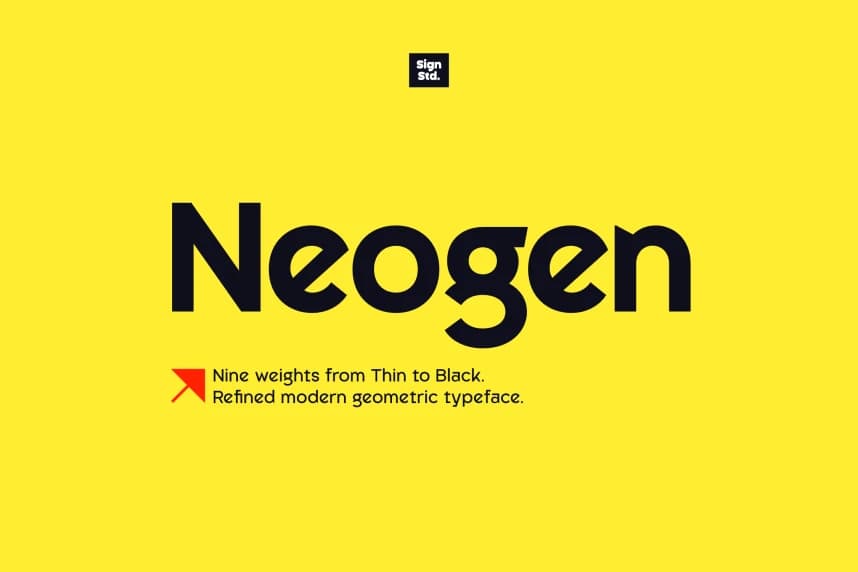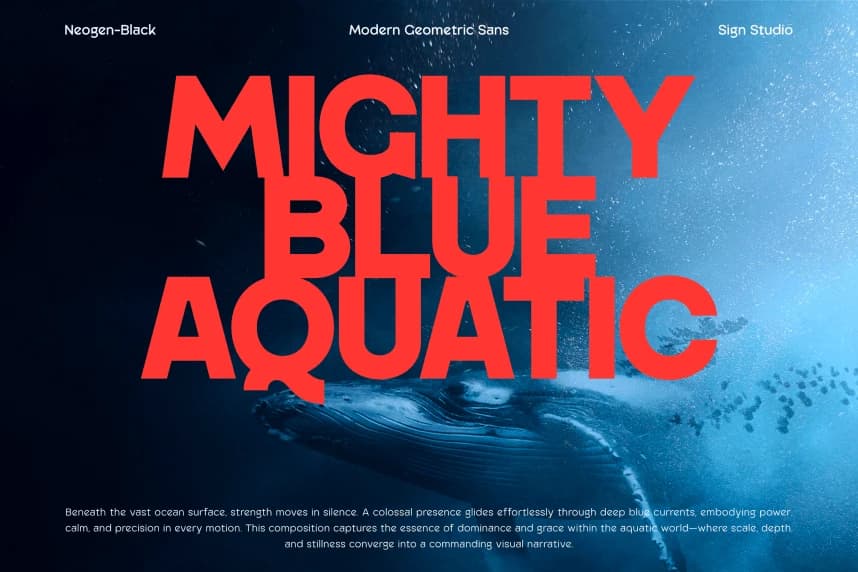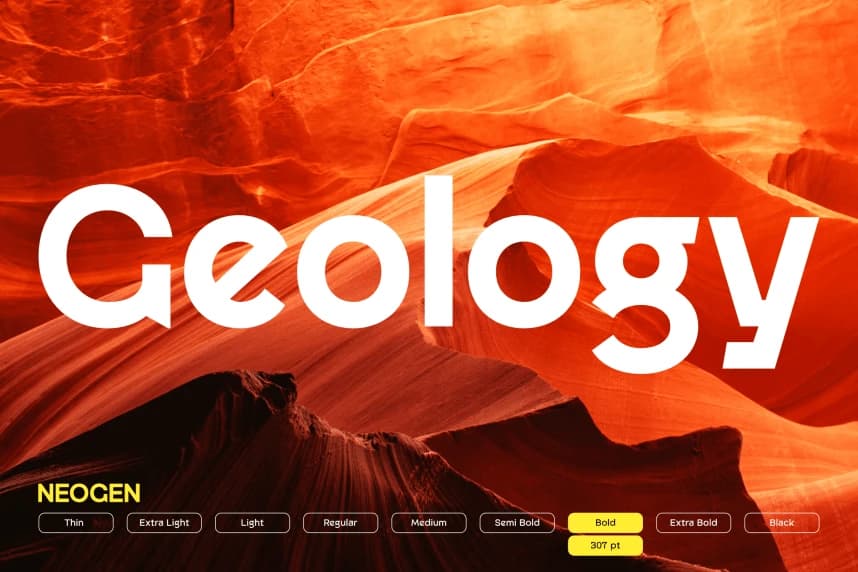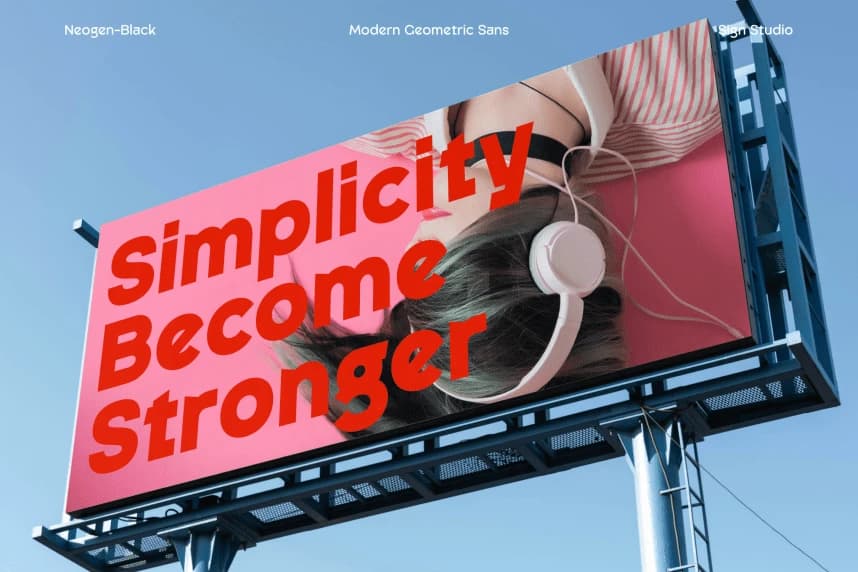
Neogen Font
Neogen Font is a contemporary sans-serif typeface engineered for clarity, versatility, and modern visual impact. Designed with a refined geometric structure and balanced proportions, it delivers a clean yet distinctive voice across a wide range of applications.